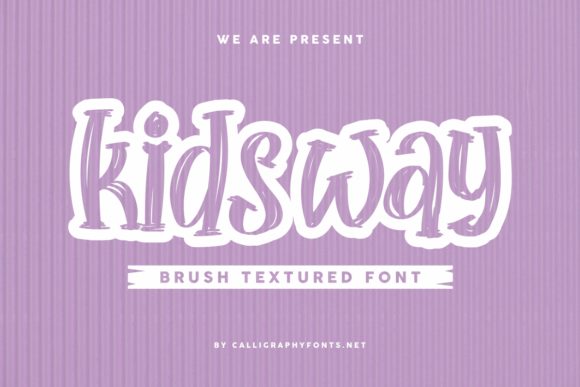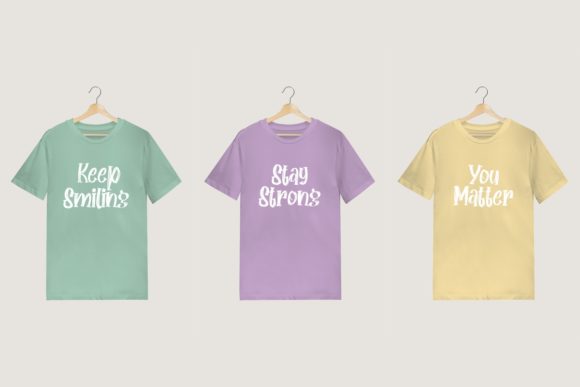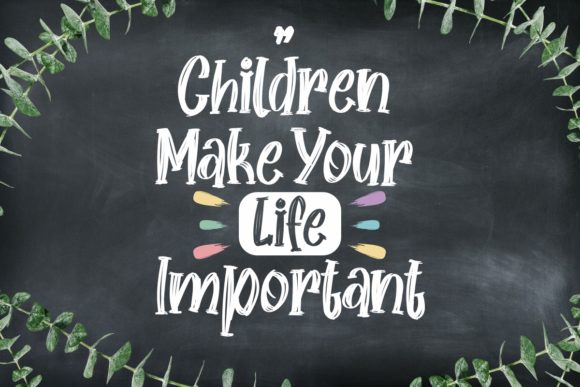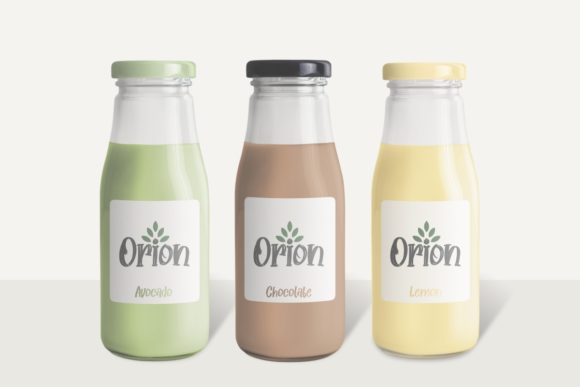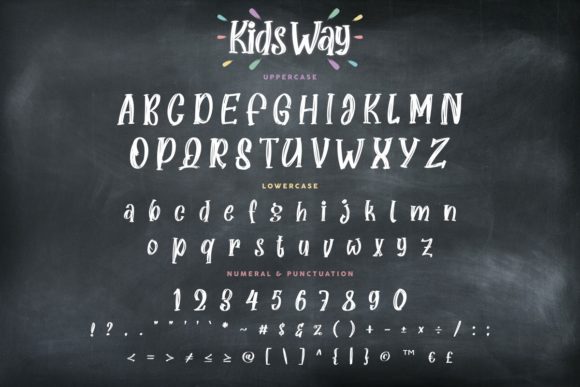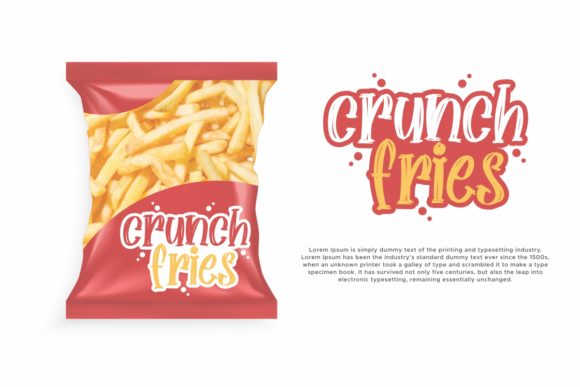
Introduction to Kids Way Font
Kids Way is a fun script font.
It features a cheer vibe that makes it great for any children and school related project Get creative with its unique playfulness and use it for branding, logo, stationery, business card, signage, flyers and more.
Key Features of Kids Way Font